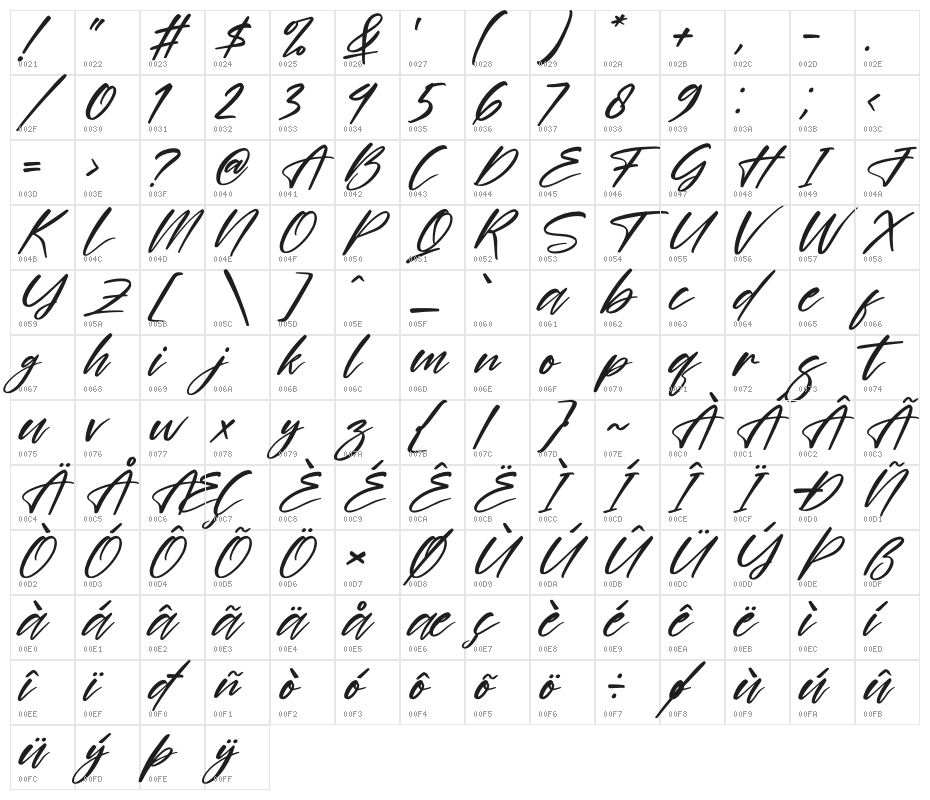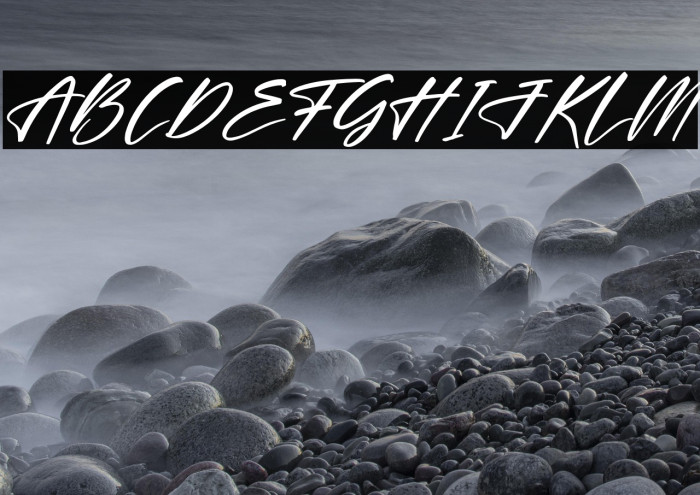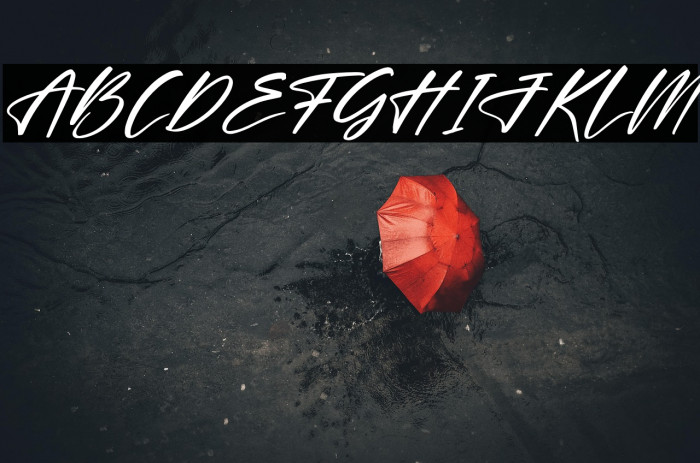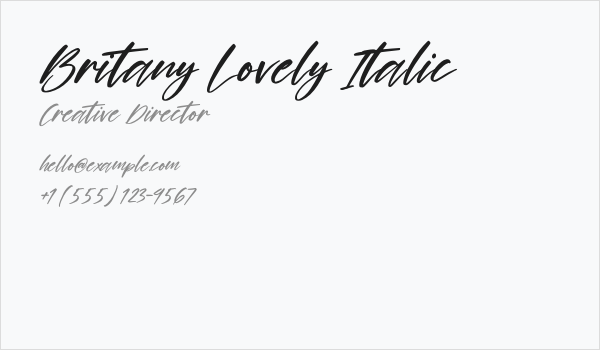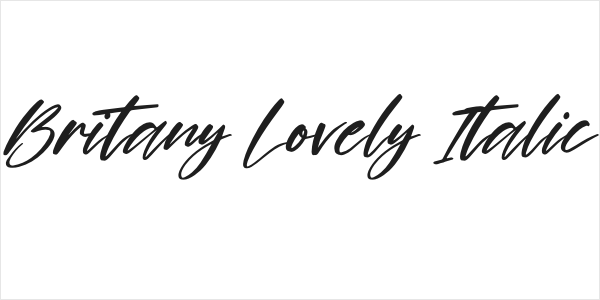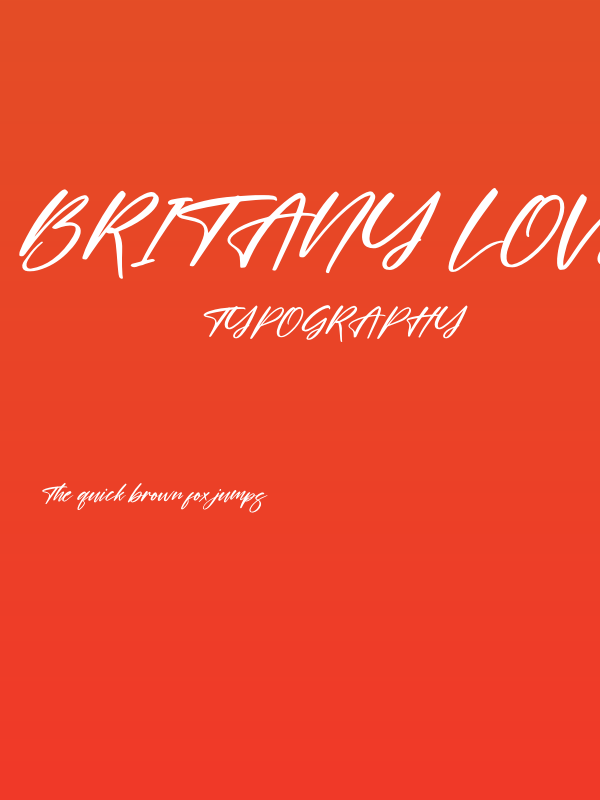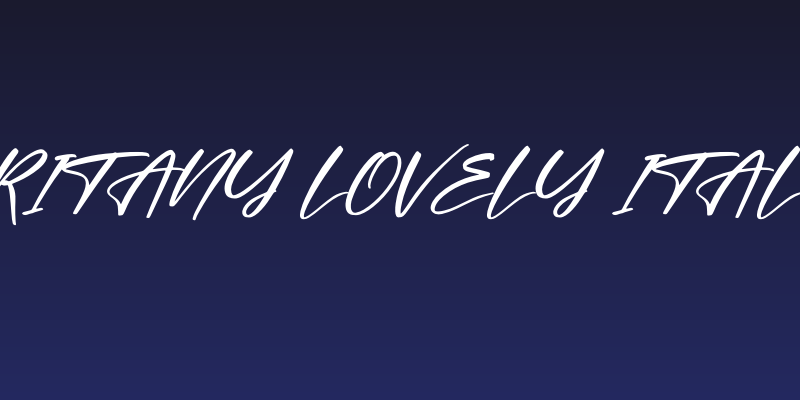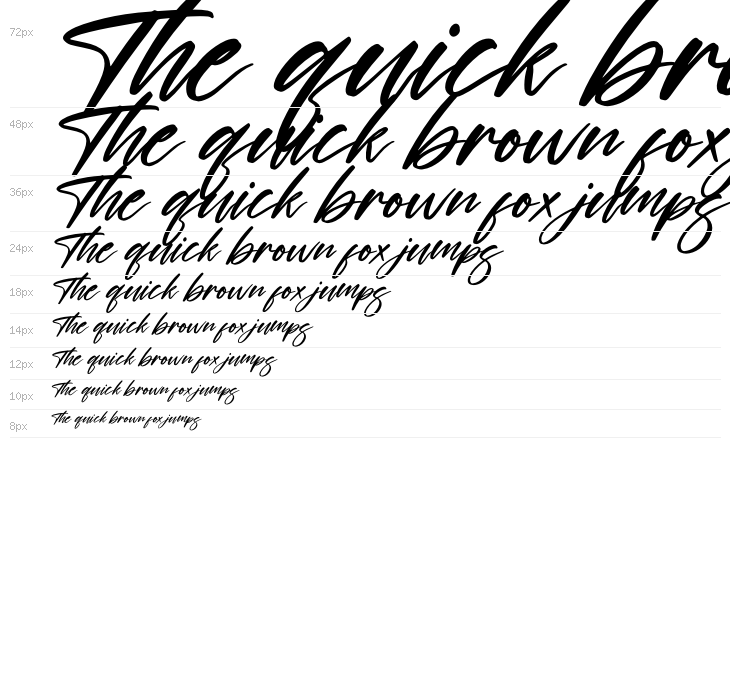
Britany Lovely Italic Font
Britany Lovely Italic Description
This font exudes a dynamic and expressive style, characterized by its fluid, cursive strokes that mimic the natural flow of handwriting. The letters are slightly slanted, enhancing the italicized appearance and adding a sense of movement and elegance. The strokes vary in thickness, providing a medium contrast that contributes to its lively and artistic feel. The uppercase letters are bold and prominent, while the lowercase letters maintain a consistent flow, making it suitable for creating a personal and informal tone. The numerals and special characters are crafted with the same attention to detail, ensuring a cohesive look across all elements.
| Proposed Projects | Ideal for wedding invitations, greeting cards, personal branding, and artistic projects that require a touch of elegance and personality. |